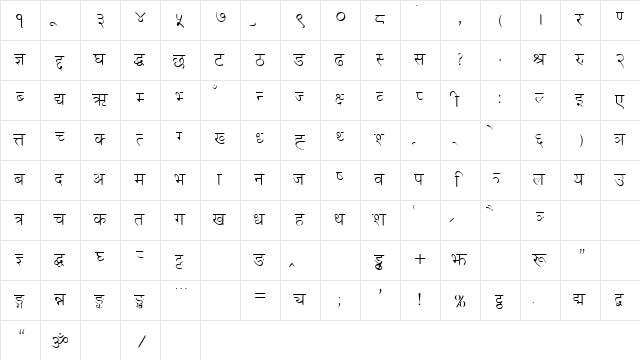
Kanchan Regular
Design Context for Kanchan Typeface
Kanchan offers clean, dependable letterforms without strong stylistic allegiance, making it a practical choice for designers who need flexibility.
Pro Tip: Use Kanchan in both headline and body roles to test its range before committing to a single application.